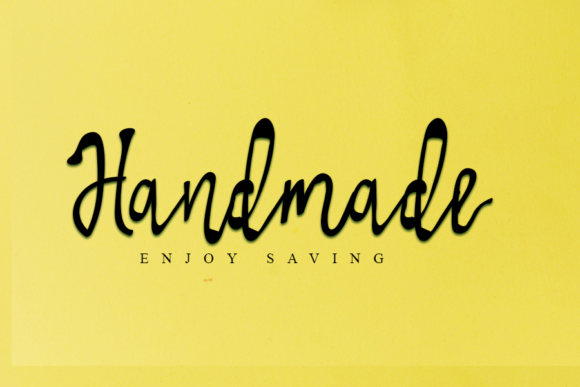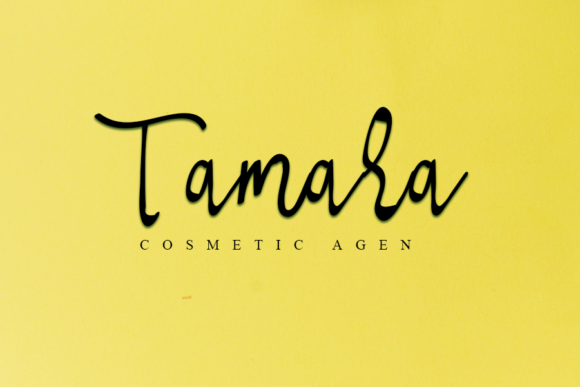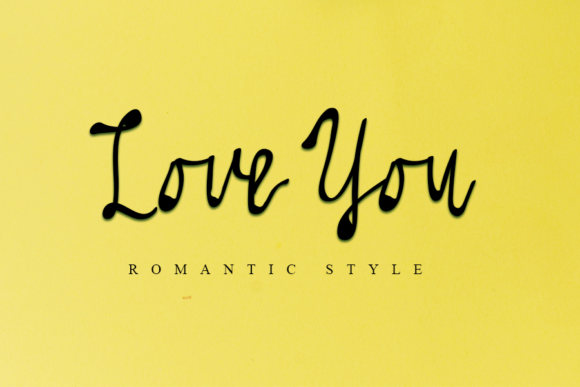
Introduction to Pemmaties Font
Have you ever been working on a creative project, only to feel stuck because you can’t find the perfect font to bring your vision to life? I know I have, and that’s exactly why I’m so excited to share with you one of my favorite design resources – the Pemmaties Font.
This adorable handwritten font is a game-changer for designers looking to add a touch of personality to their work. With its incredibly versatile style, the Pemmaties Font is perfect for creating gorgeous wedding invitations, beautiful stationery art, eye-catching social media posts, and so much more.
Key Features of Pemmaties Font
- Unique, modern design aesthetic that adds a touch of sophistication to any creative project
Honest Review: Pemmaties Font
I recently stumbled upon the Pemmaties Font while searching for a unique design resource for a creative project. I must say, I was impressed by its high quality and versatility.
Some of the font’s features include:
- Unique and stylish aesthetic
- Easy to use, even for beginners
Overall, I’m impressed with the Pemmaties Font and would definitely recommend it to designers looking for a high-quality, free design resource. While it may have a few limitations, its unique aesthetic and ease of use make it a valuable addition to any design arsenal.
Tips for Getting the Most Out of Pemmaties Font
Pemmaties Font is ideal for:
- Creating eye-catching logos and branding materials.
- Designing engaging social media graphics and posts.
- Developing high-quality presentations and reports.
Alternatives to Pemmaties Font
Great Vibes Font is a high-quality script font perfect for creative projects that require a touch of elegance and sophistication. It’s ideal for use in wedding invitations, logos, and other design elements where a sense of refinement is necessary.
Compared to Pemmaties Font, Great Vibes Font offers a more refined and polished look, making it suitable for a wider range of design applications. It’s a great alternative for designers seeking a high-quality script font with a transparent background.
Alex Brush Font is a beautiful, handwritten font that’s perfect for designers working on creative projects that require a personal touch. It’s ideal for use in blog headers, quotes, and other design elements where a sense of warmth and personality is necessary.
Compared to Pemmaties Font, Alex Brush Font offers a more relaxed and casual look, making it suitable for a wider range of design applications. It’s a great alternative for designers seeking a free download font with a high-quality, transparent background.
Carolyna Pro Font is a high-quality, modern script font perfect for designers working on creative projects that require a touch of luxury and sophistication. It’s ideal for use in logos, branding, and other design elements where a sense of high-end quality is necessary.
Compared to Pemmaties Font, Carolyna Pro Font offers a more modern and sleek look, making it suitable for a wider range of design applications. It’s a great alternative for designers seeking a high-quality, free download font with a transparent background.